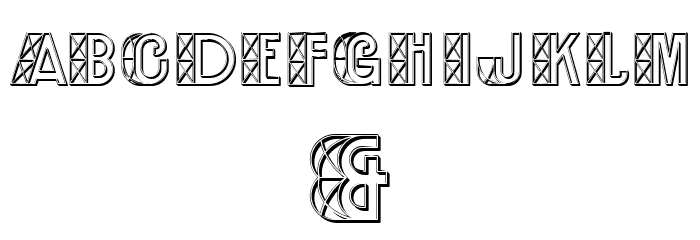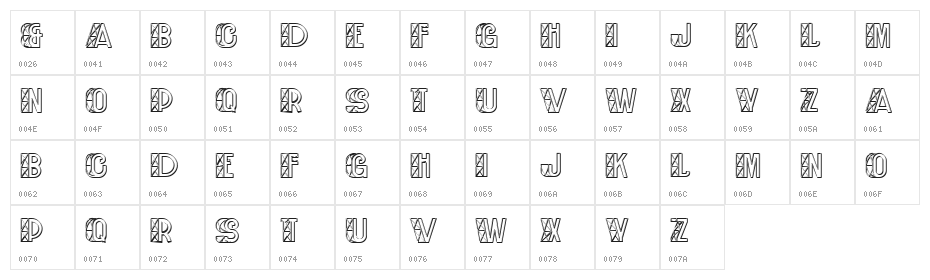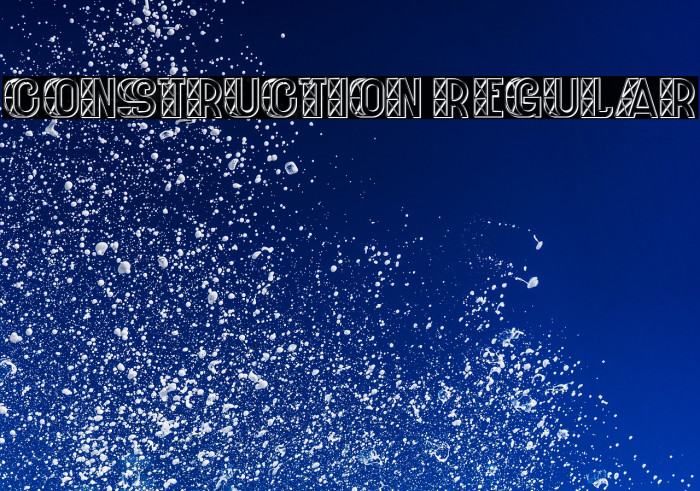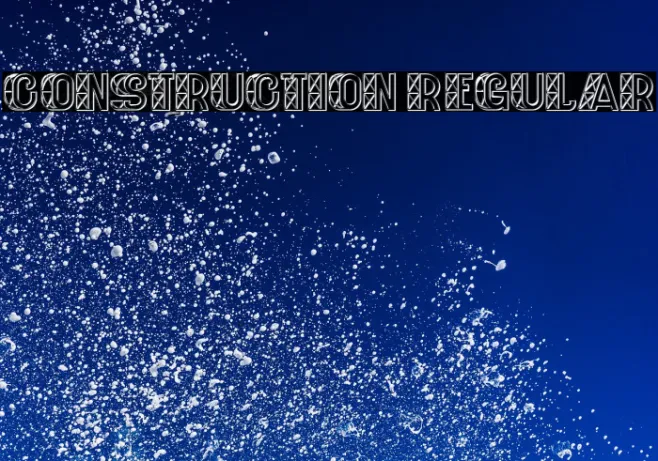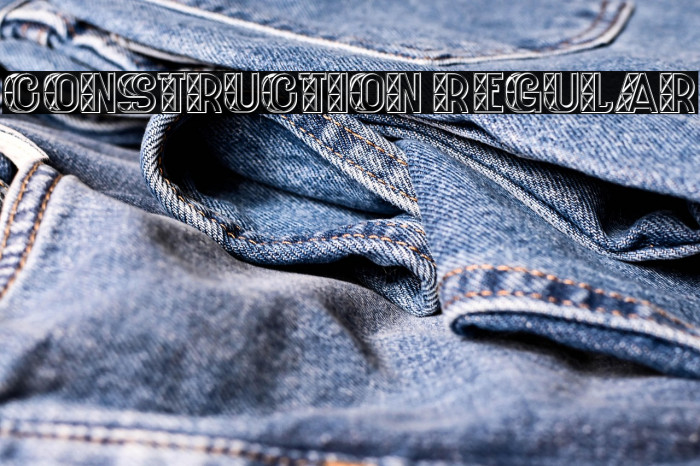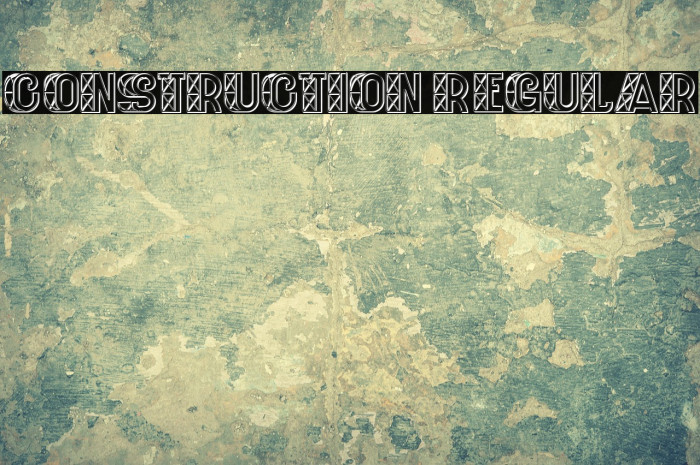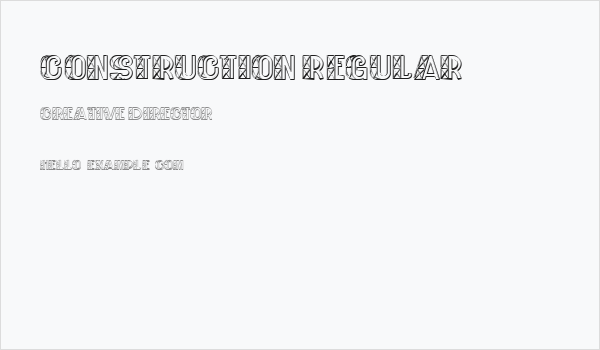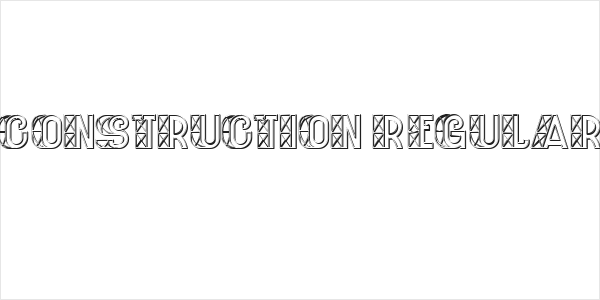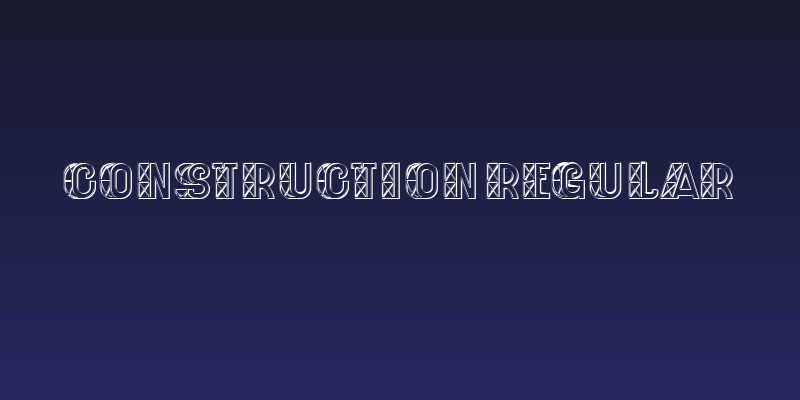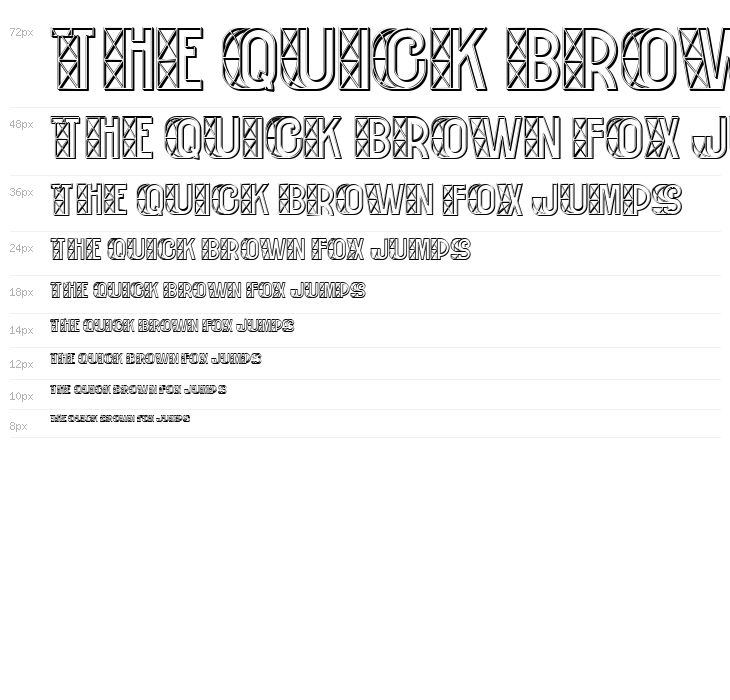
Construction Regular Font
Construction Regular Description
This font features a unique, geometric design with intricate line patterns filling each character. The letters are bold and structured, resembling architectural blueprints or construction elements. Each character is outlined with a solid border, and the internal lines create a sense of depth and complexity. The style is highly decorative, making it stand out for creative and artistic projects. The uppercase letters are uniform in height, maintaining a consistent visual rhythm across the alphabet. This font's distinct style is ideal for projects that require a strong visual impact.
| Use Case | Headlines, Logos, Artistic designs |
| Proposed Projects | Ideal for posters, branding, architectural designs, and artistic projects that require a bold statement. |